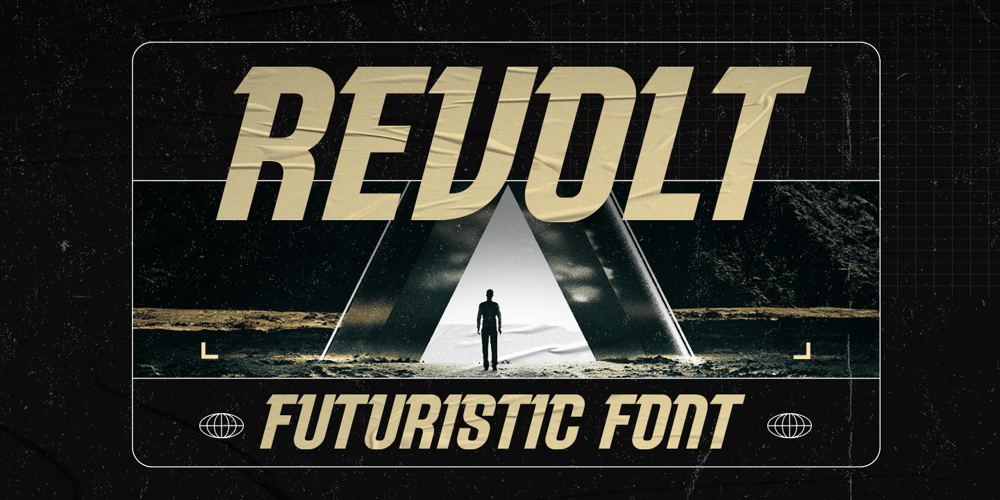
Revolt Font Family was designed by Novitasari Romli and published by Novitype. Revolt contains 2 styles and family package options. Introducing “Revolt” – a futuristic, minimalist, and bold font with a touch of elegant retro-techno vibes. This versatile font can be used across various themes such as technology, sports, automotive, or sci-fi. It comes in two styles: Regular and Slanted.Elevate your designs with this font, highly recommended for logos, logotypes, movies, posters, flyers, stickers, labels, titles, and even emblems. With special characters and multilingual support, make your designs more elegant and daring than ever before!Fonts featured : Uppercase Lowercase Numbers & punctuation Symbols Stylistic alternates Multilingual support